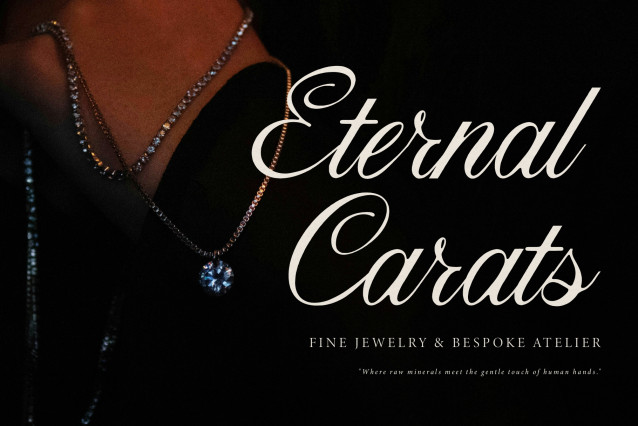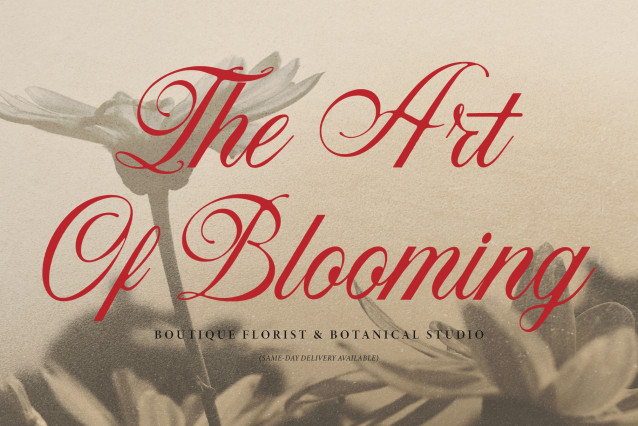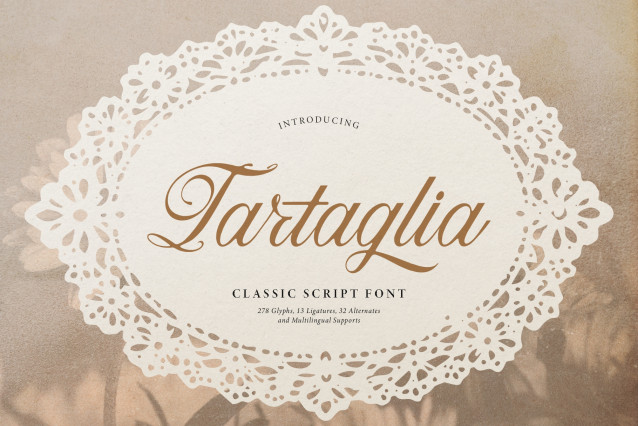
Tartaglia Classic Script Font
Tartaglia Classic Script Font, from Gracetypestudio, suitable for any projects such as: logos, branding projects, homeware designs, product packaging, mugs, quotes, posters, shopping bags, t-shirts, book covers, name card, invitation cards, greeting cards, label, photography, watermark, special events, and all your other lovely projects that need a Script Font taste.